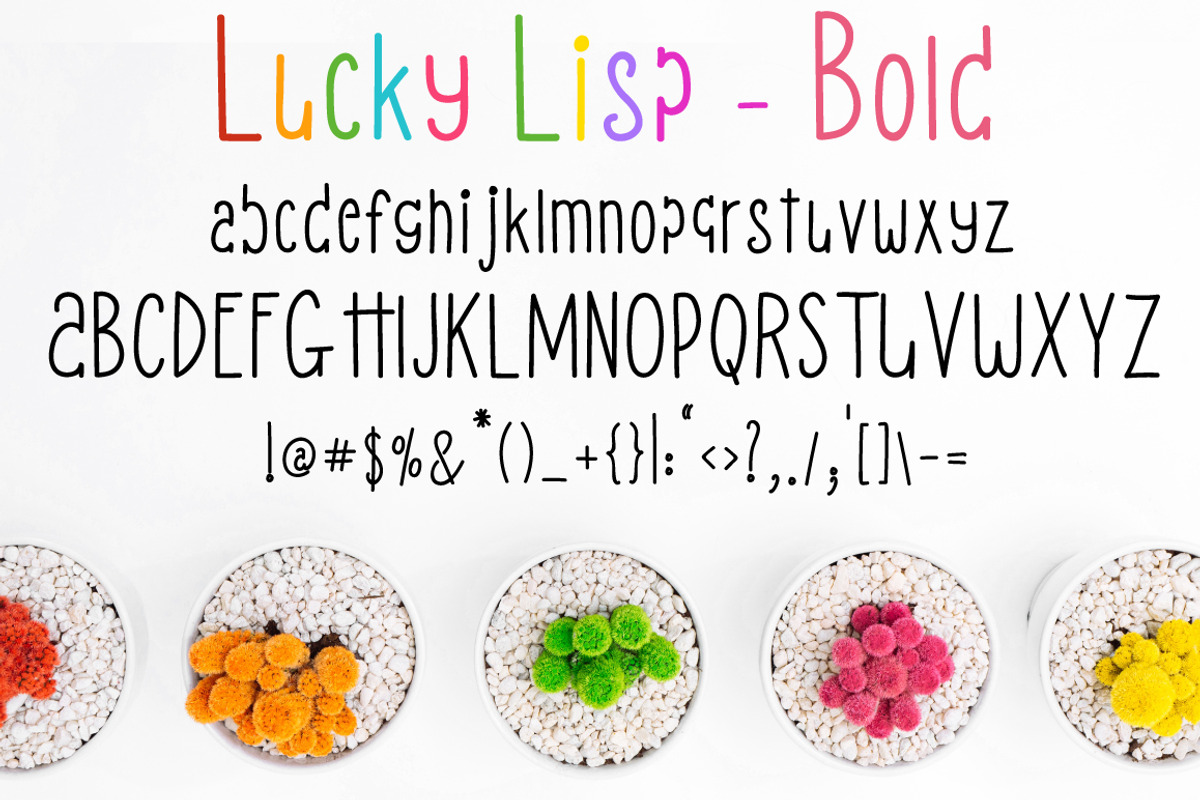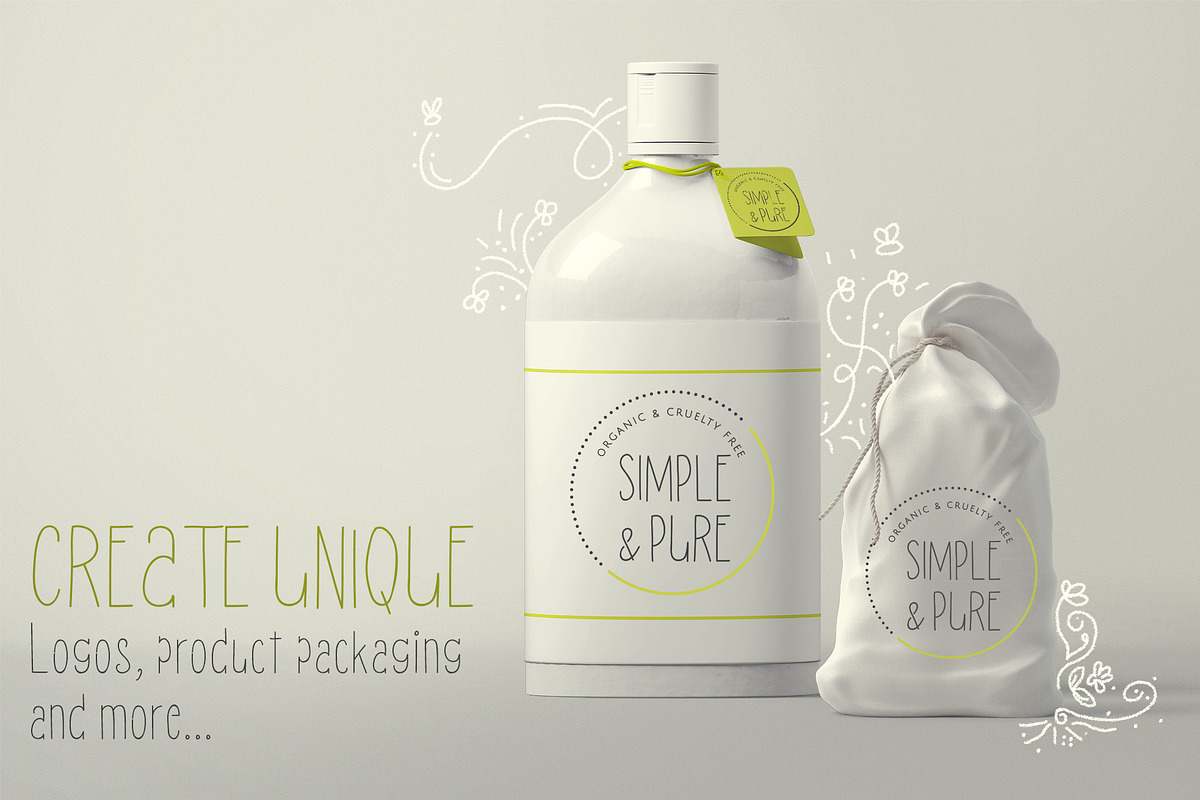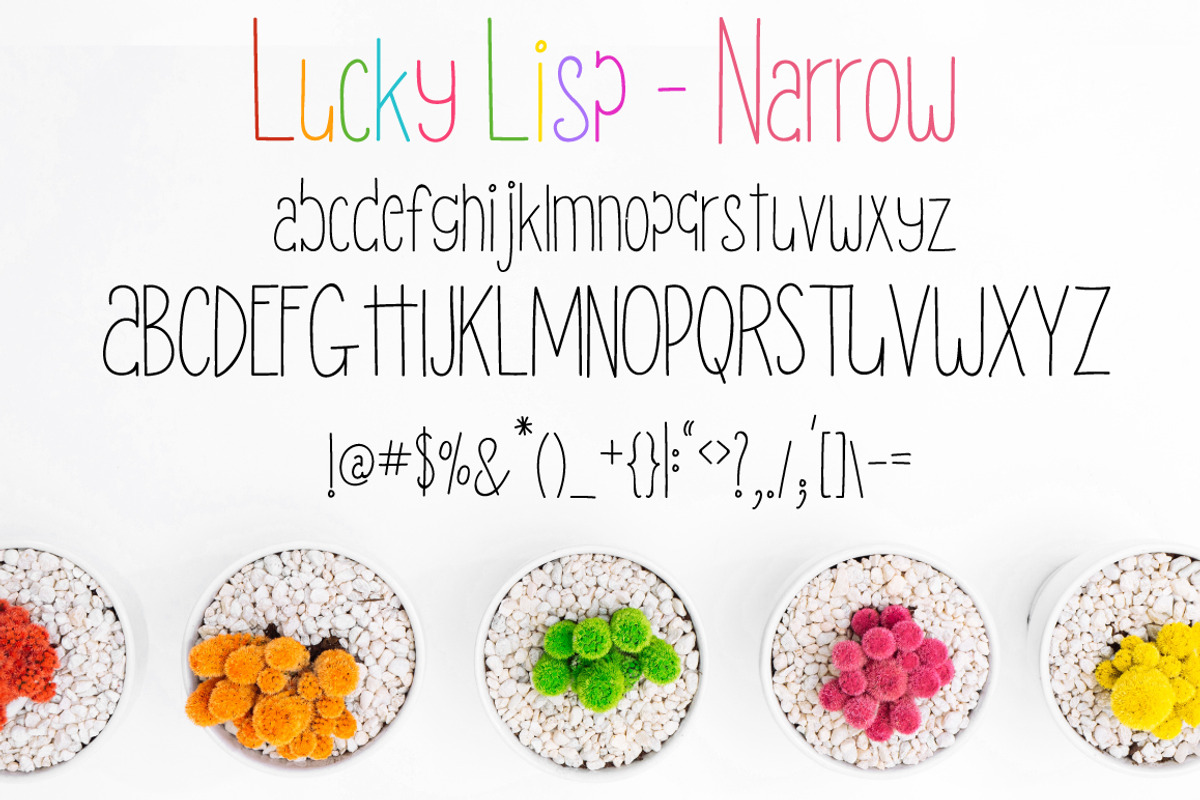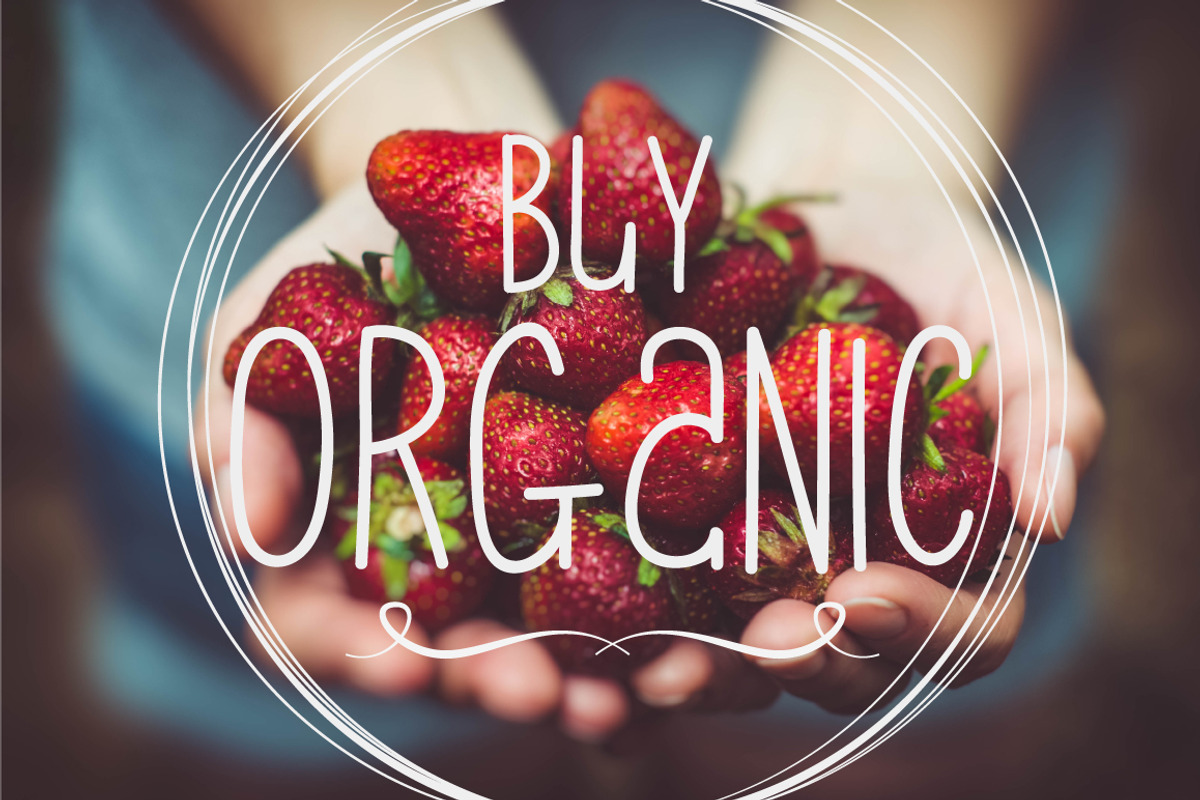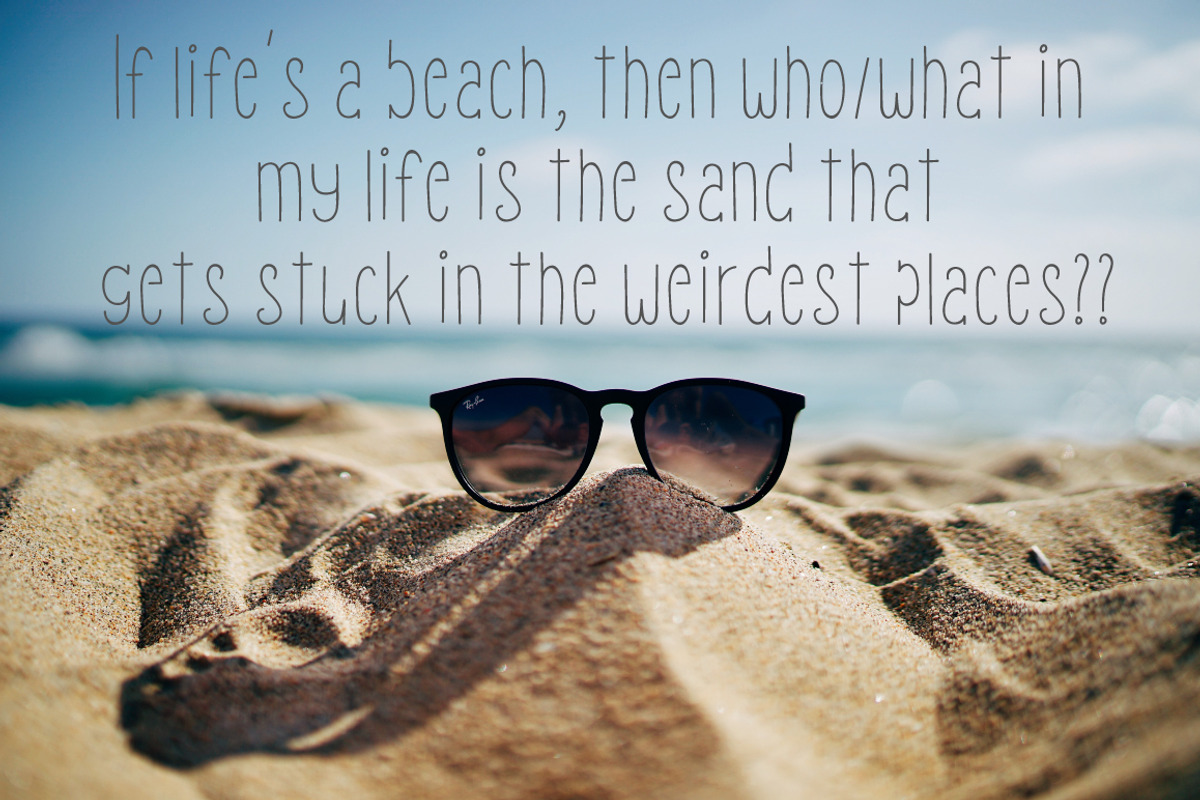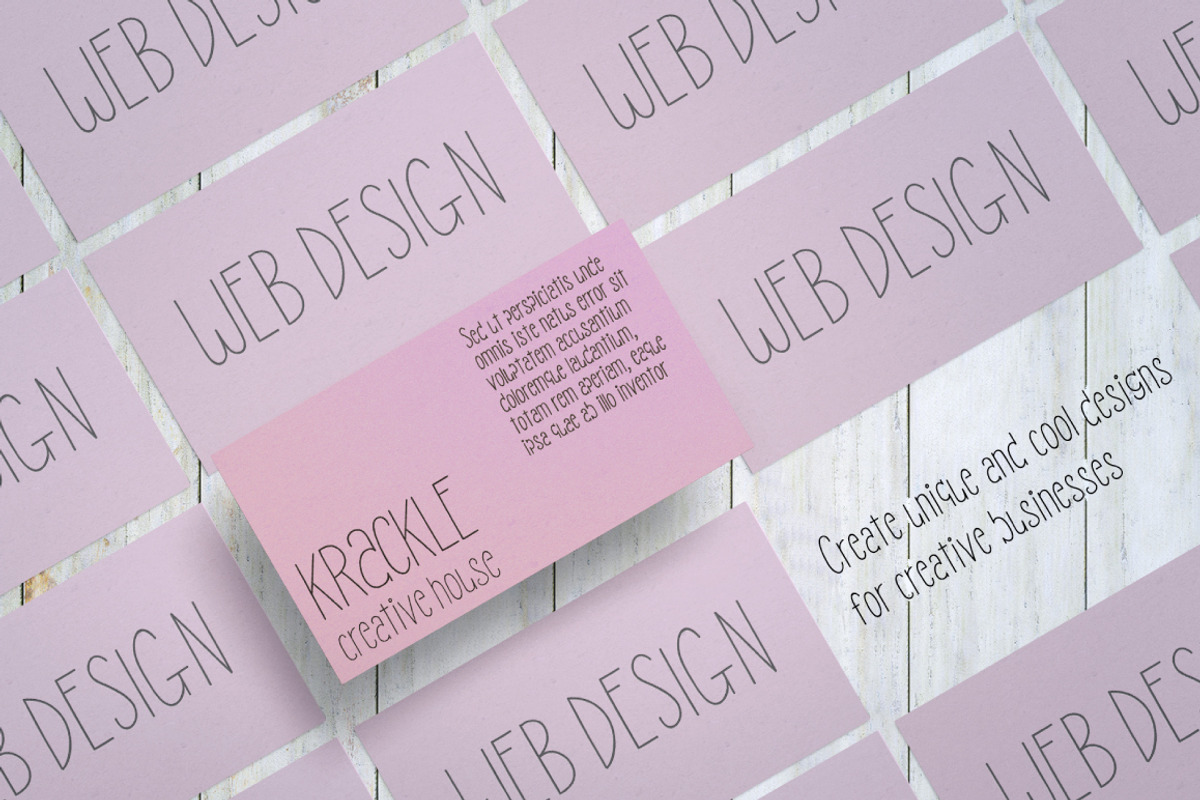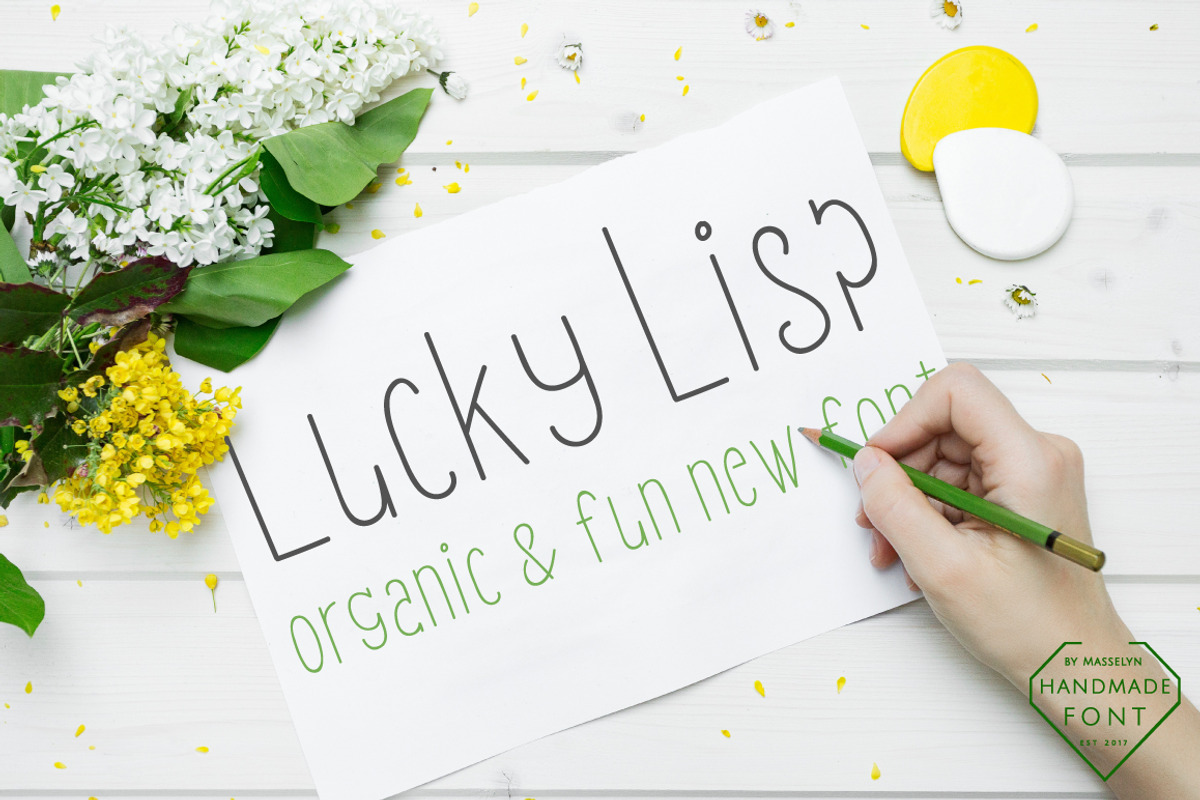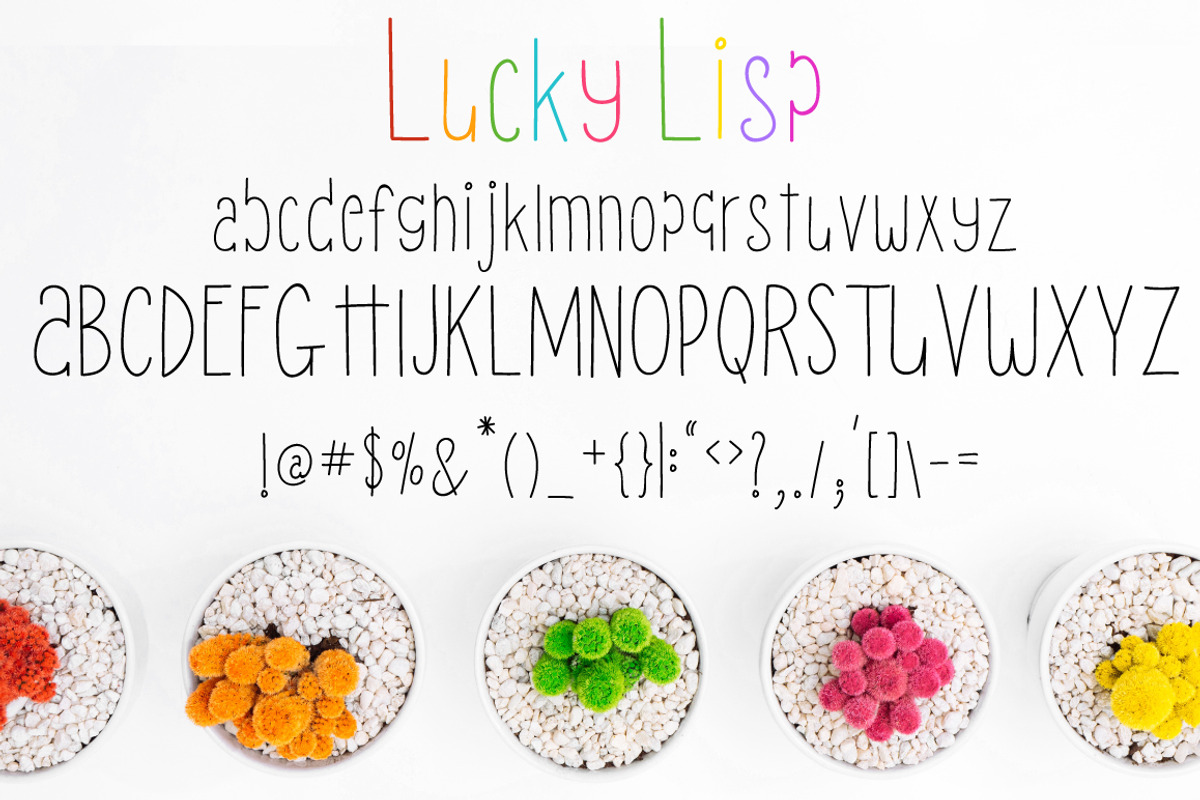
Lucky Lisp // Organic Font Family
I've added a fun & organic font to my new collection. Though Lucky Lisp does not say his "S" and T" letters differently, he does have a few characters that have a little quirky edge to them. This font is really clean, easy to read and looks wonderful for organic and natural applications (like some of the examples shown in my pictures).